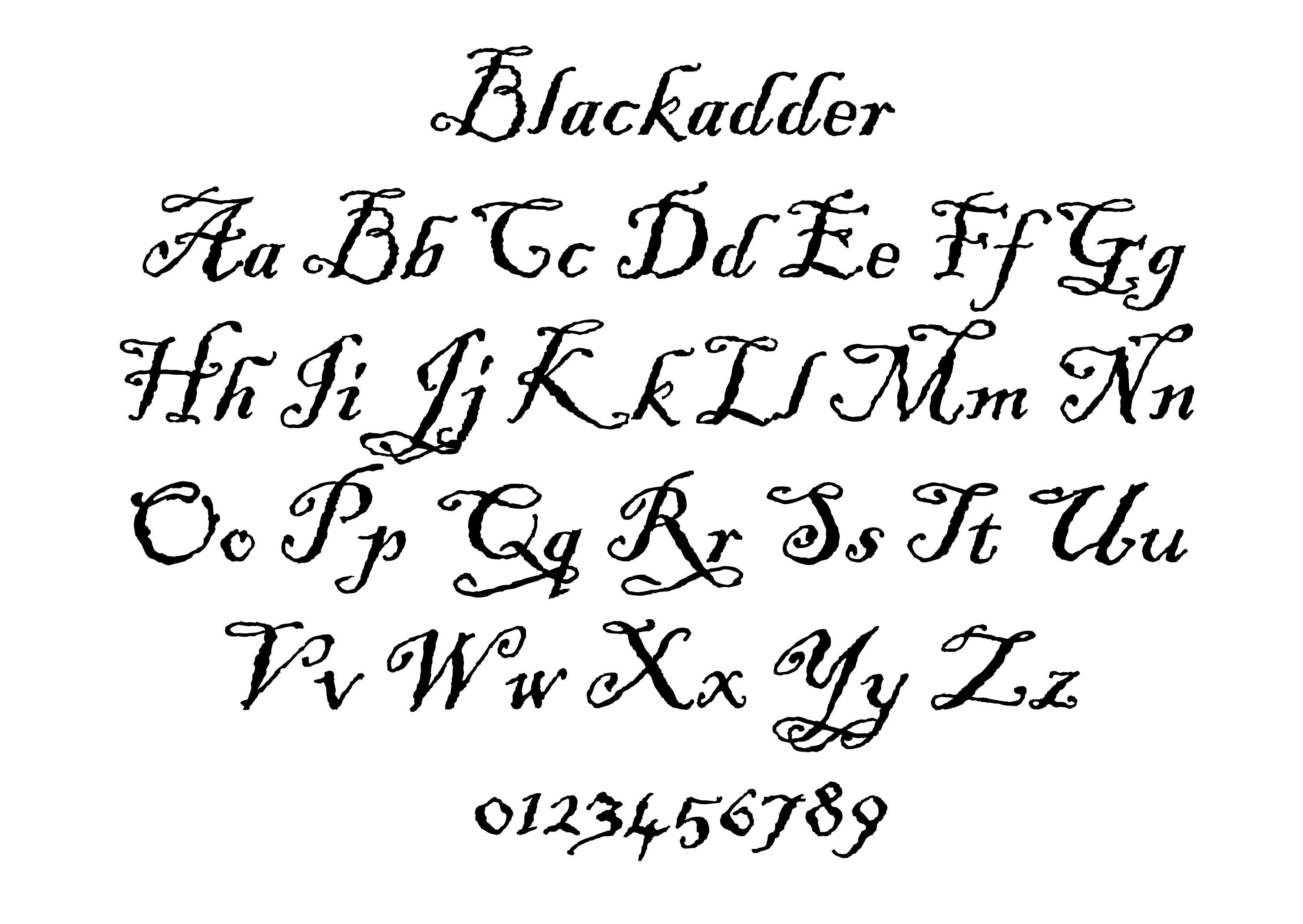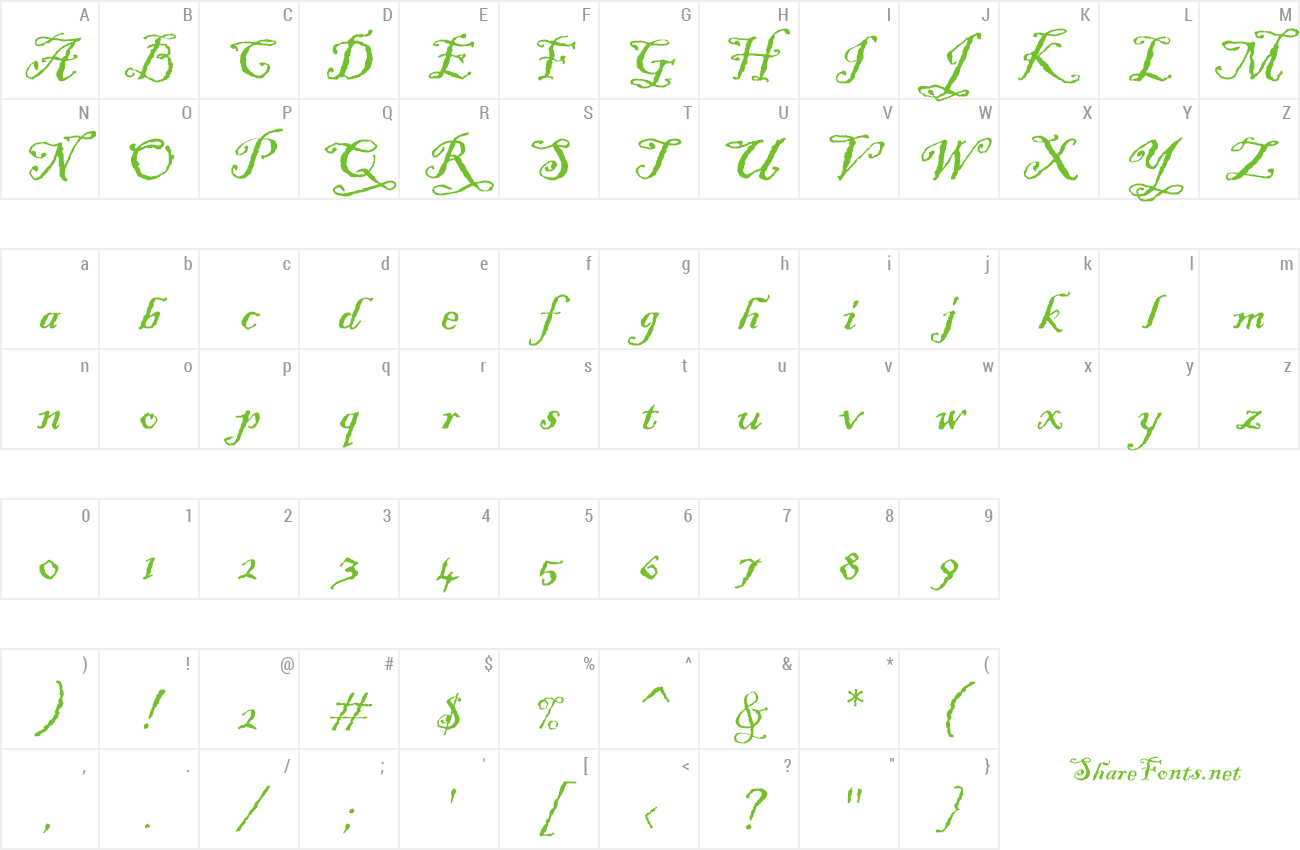
Black Adder Font
Detailed information on the blackadder itc font: Blackadder itc font is an elegant, yet menacing display face is perfect for theatrical uses and scare tactics. Moreover, you can embed it to your website with. Web black adder ii font | dafont.com english français español deutsch italiano português. 1 matching request on the forum.
Moreover, you can embed it to your website with. Detailed information on the blackadder itc font: Blackadder itc font is an elegant, yet menacing display face is perfect for theatrical uses and scare tactics. Web download american participants font (26 downloads) download the blackadder itc free font. Web black adder ii font | dafont.com english français español deutsch italiano.
Web buy itc blackadder regular desktop font from itc on fonts.com. Web black adder ii font | dafont.com english français español deutsch italiano português. Blackadder itc font is an elegant, yet menacing display face is perfect for theatrical uses and scare tactics. Moreover, you can embed it to your website with. Detailed information on the blackadder itc font:
Moreover, You Can Embed It To Your Website With.
Web black adder ii font | dafont.com english français español deutsch italiano português. Detailed information on the blackadder itc font: Web buy itc blackadder regular desktop font from itc on fonts.com. Web download american participants font (26 downloads) download the blackadder itc free font.
Blackadder Itc Font Is An Elegant, Yet Menacing Display Face Is Perfect For Theatrical Uses And Scare Tactics.